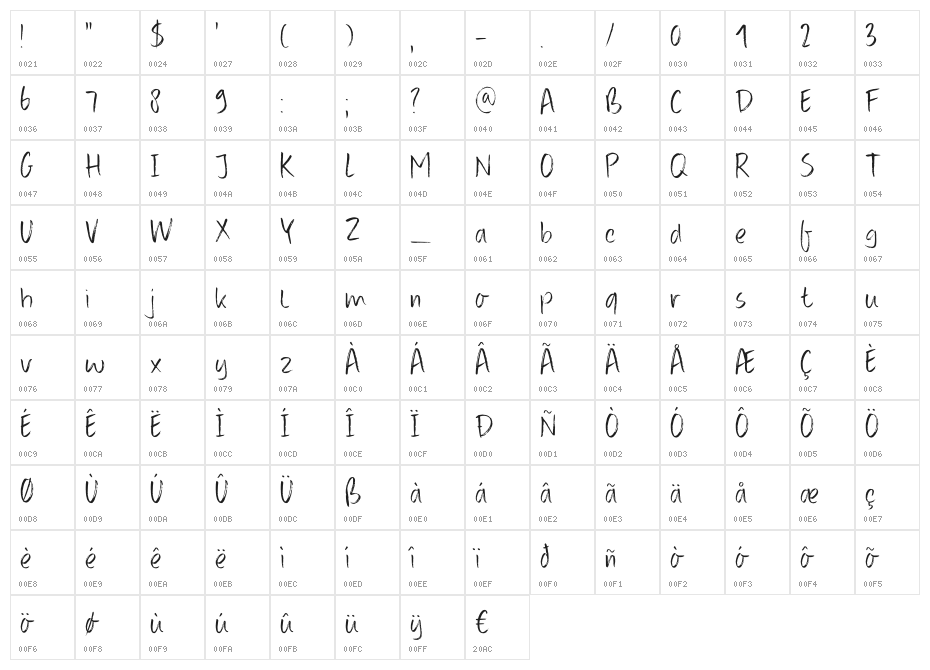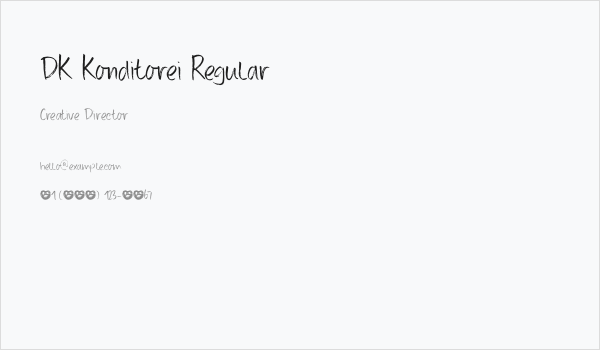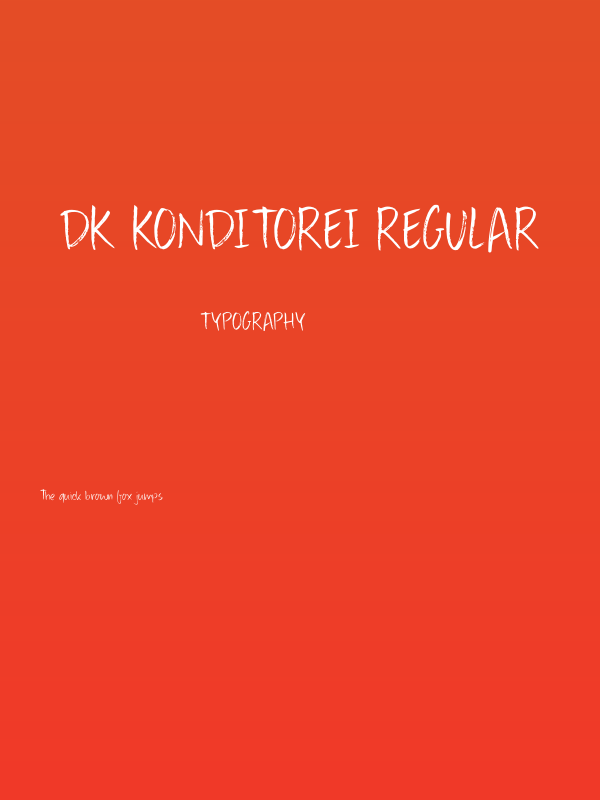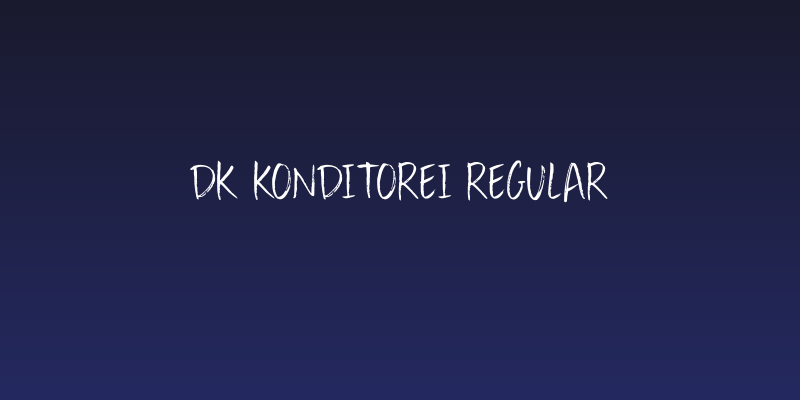
DK Konditorei Regular Font
DK Konditorei Regular Description
This font features a playful and artistic brushstroke style, giving it a hand-painted appearance. The uppercase and lowercase letters are crafted with uneven strokes, adding a dynamic and energetic feel. The numbers and special characters maintain this lively aesthetic, making the font suitable for creative and informal designs. The overall texture is rough, with visible brush marks that enhance its handcrafted look. This font is ideal for projects that require a personal touch, such as invitations, posters, or branding for artistic ventures.
Proposed ProjectsIdeal for creative projects like invitations, posters, and artistic branding.